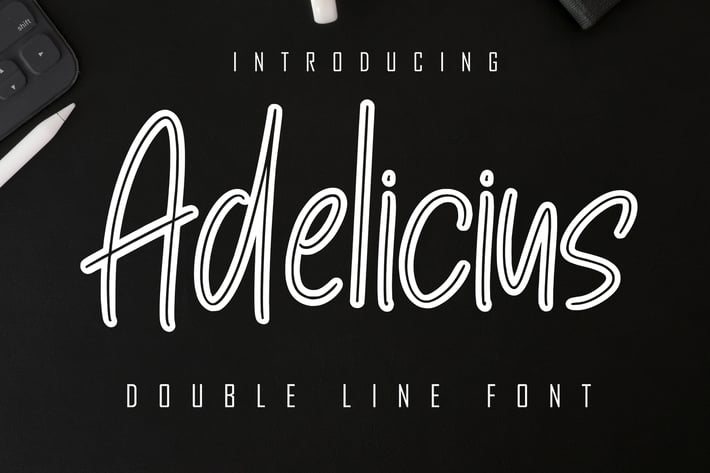
Adelicius Double Line Font
Adelicius is a Double line type font combined with a rapi so it looks elegant, suitable to support a variety of designs and your business